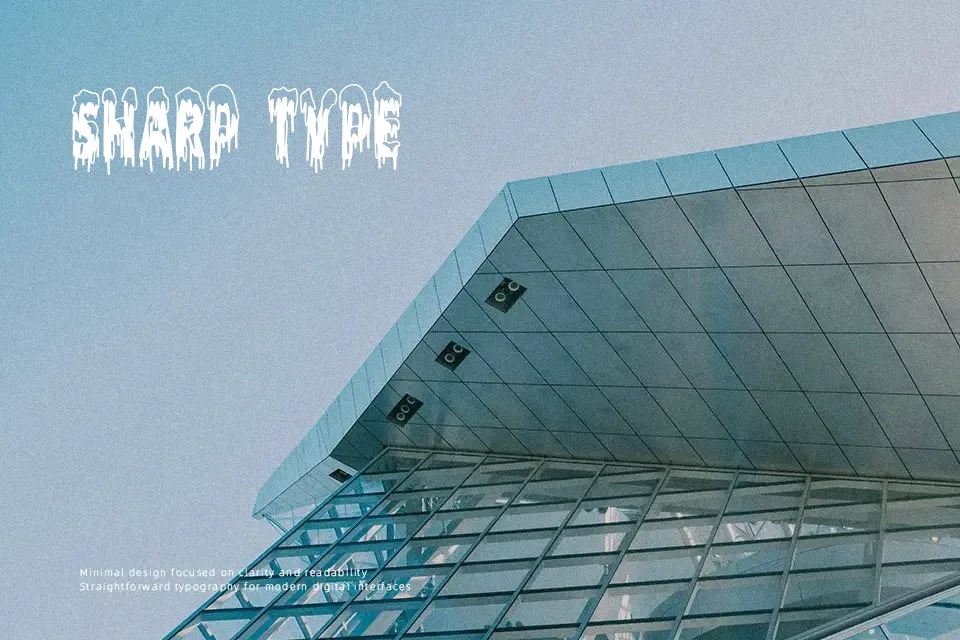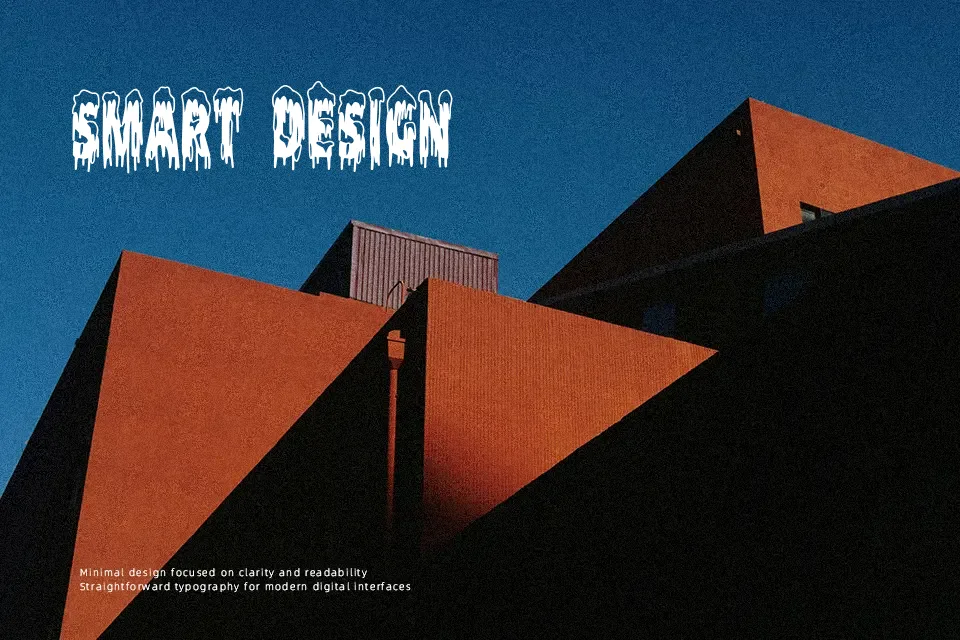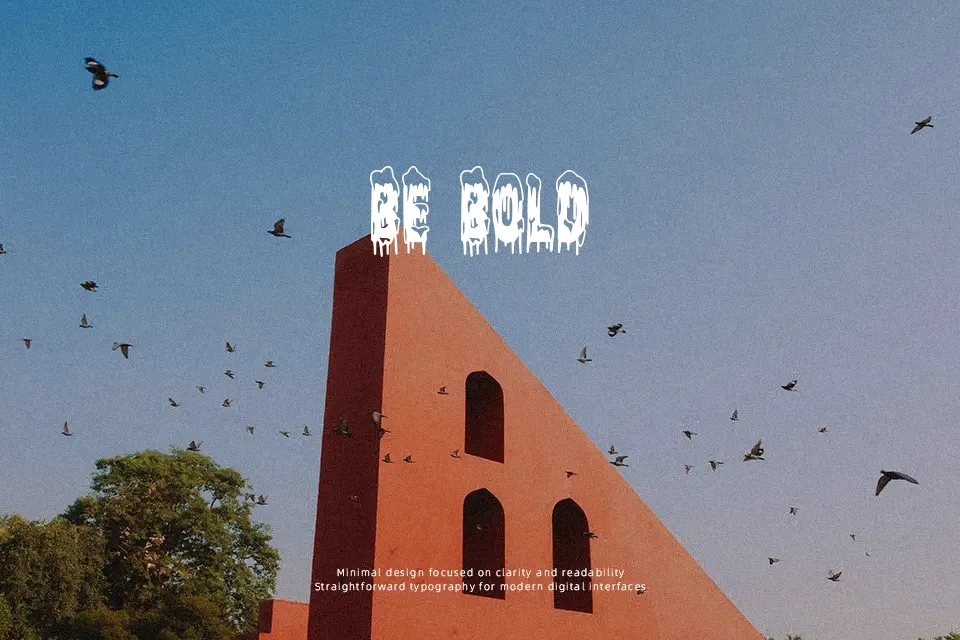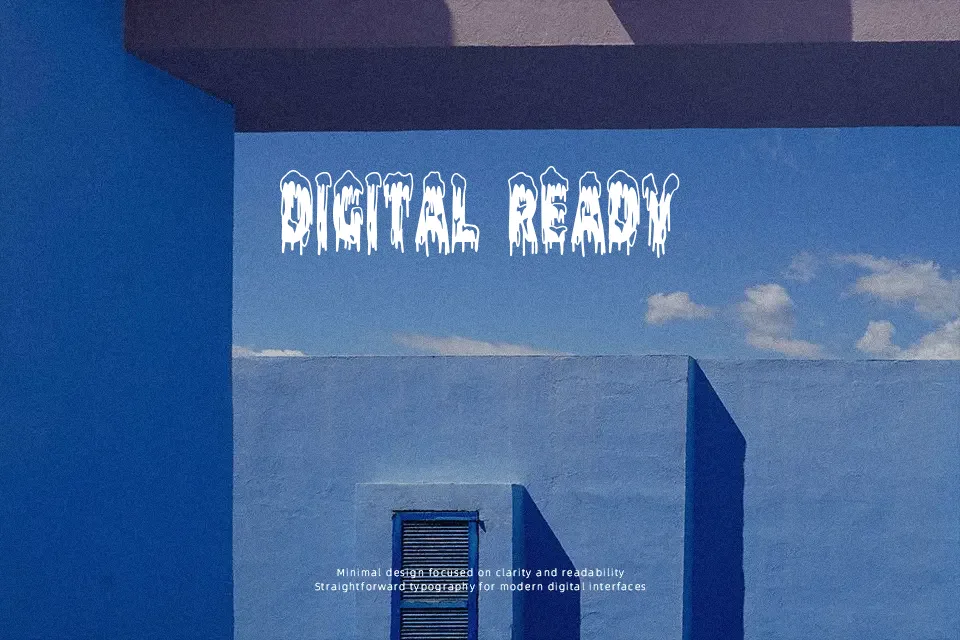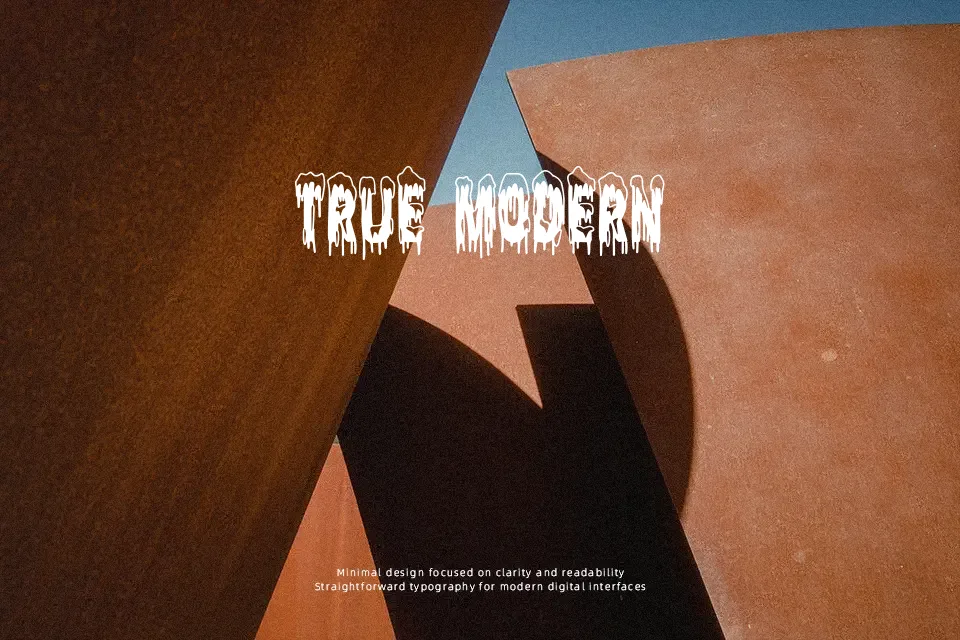
The Snow Nightmare Font
Headline applications requiring an intense seasonal atmosphere benefit significantly from The Snow Nightmare Font, an aggressive display typeface characterized by eroded edges and melting icicle contours. Heavy, uneven strokes create a raw silhouette, while condensed letterforms give the design a tall, imposing presence on the canvas. Spacing between characters is deliberately compact, generating solid blocks of dark texture that command attention in poster titles, album art, and game logos. However, the intricate decorative erosion causes smaller body text to become illegible, making dense paragraphs impractical. When deployed at large scales, the letterforms preserve their jagged individual identities without sacrificing basic compositional recognition.
Best For: horror video game titles, seasonal event posters, winter festival merchandise, chilling book covers
Not Ideal For: continuous paragraph reading, mobile application UI, small caption text, corporate documents
Perfect for film, gaming, and headline, with a cold and decorative style.